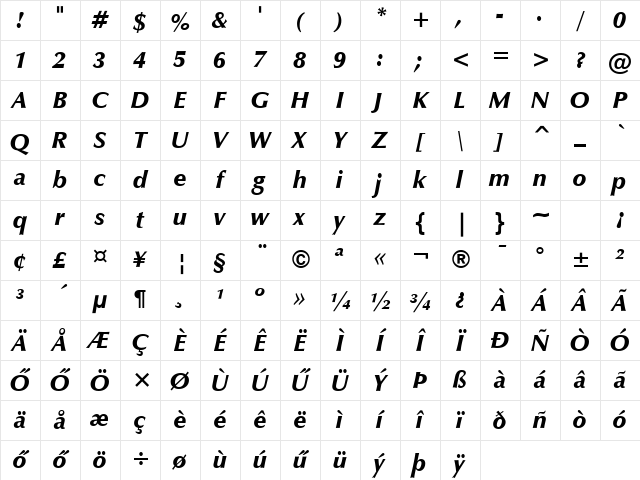
Complete Zapf-Humanist601Ultra HU Italic glyph index. Displaying only characters natively supported by Zapf-Humanist601Ultra HU Italic font.
Zapf-Humanist601Ultra HU is a composed and adaptable typeface that performs quietly and consistently across a wide range of design contexts. The slanted form adds forward momentum and visual energy.